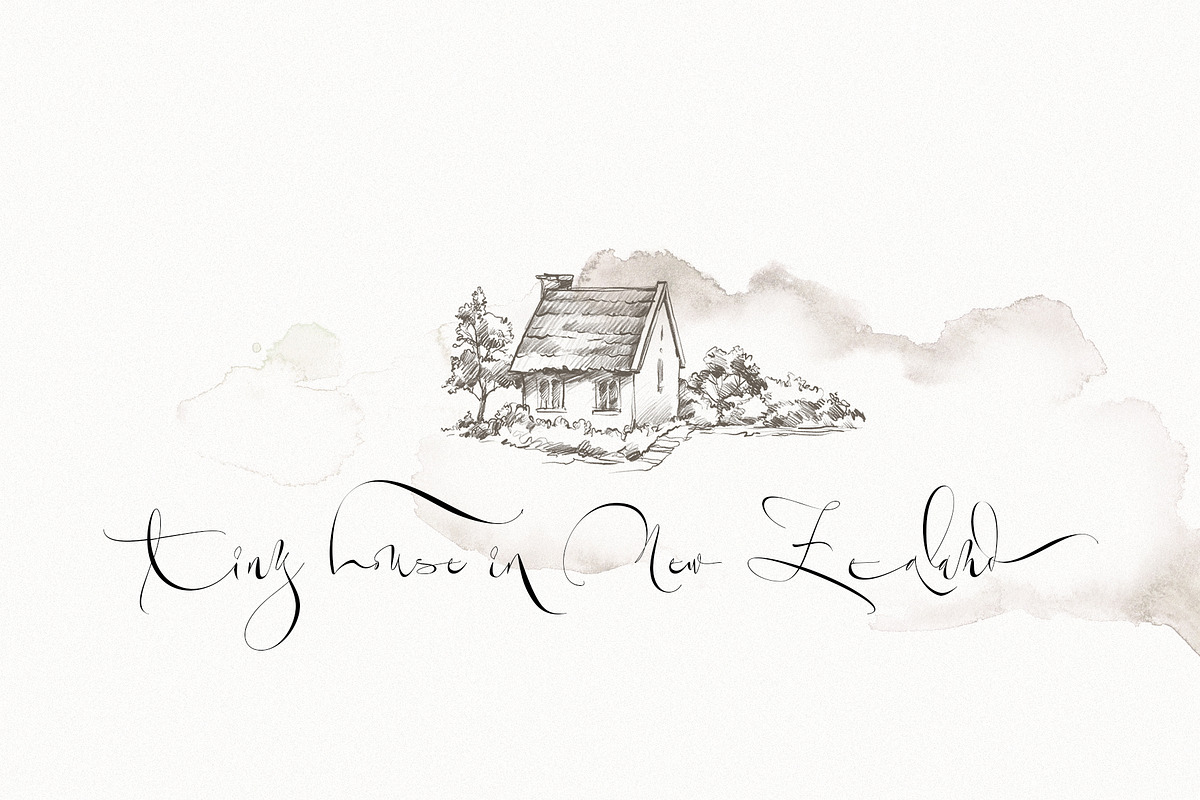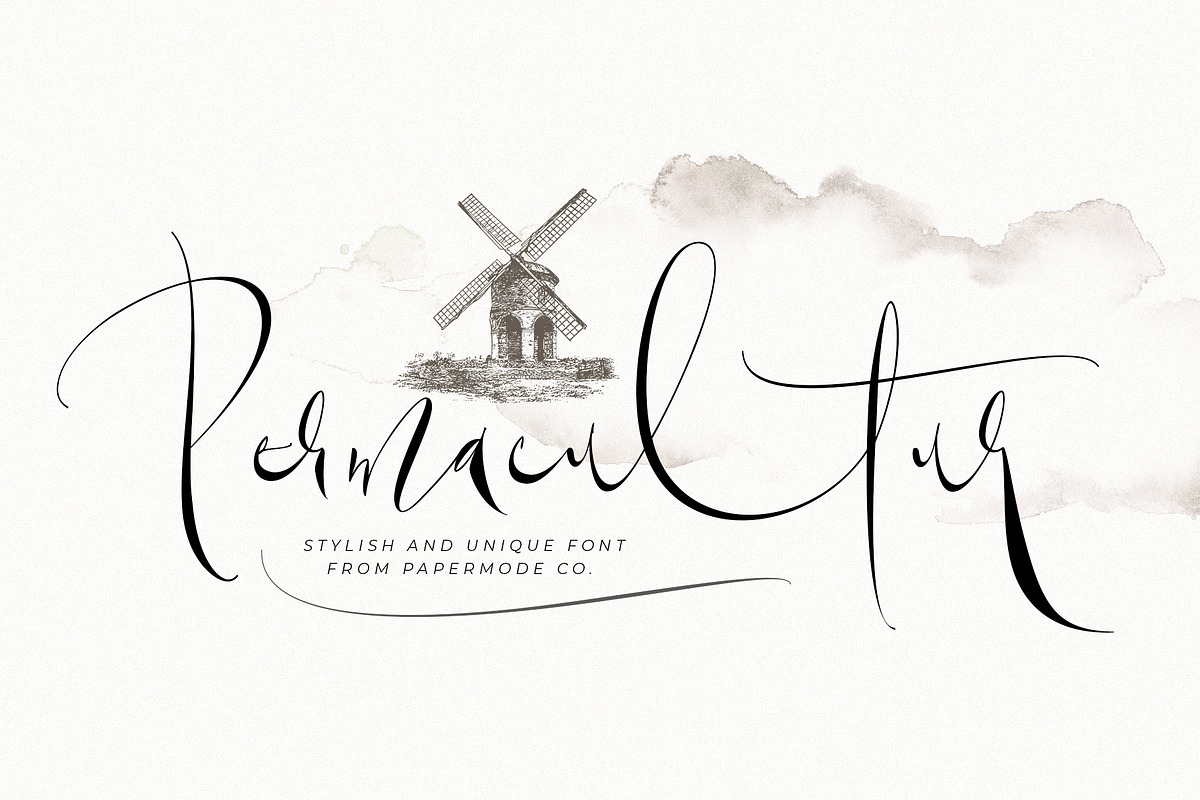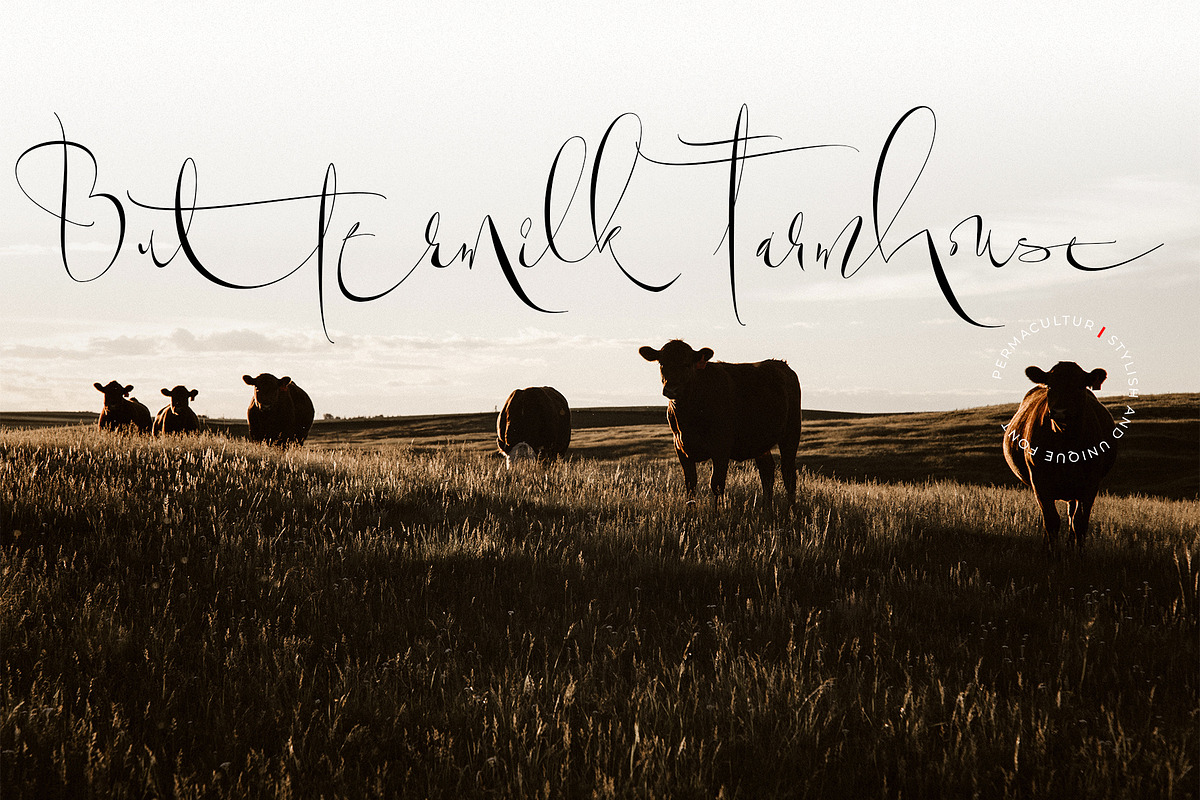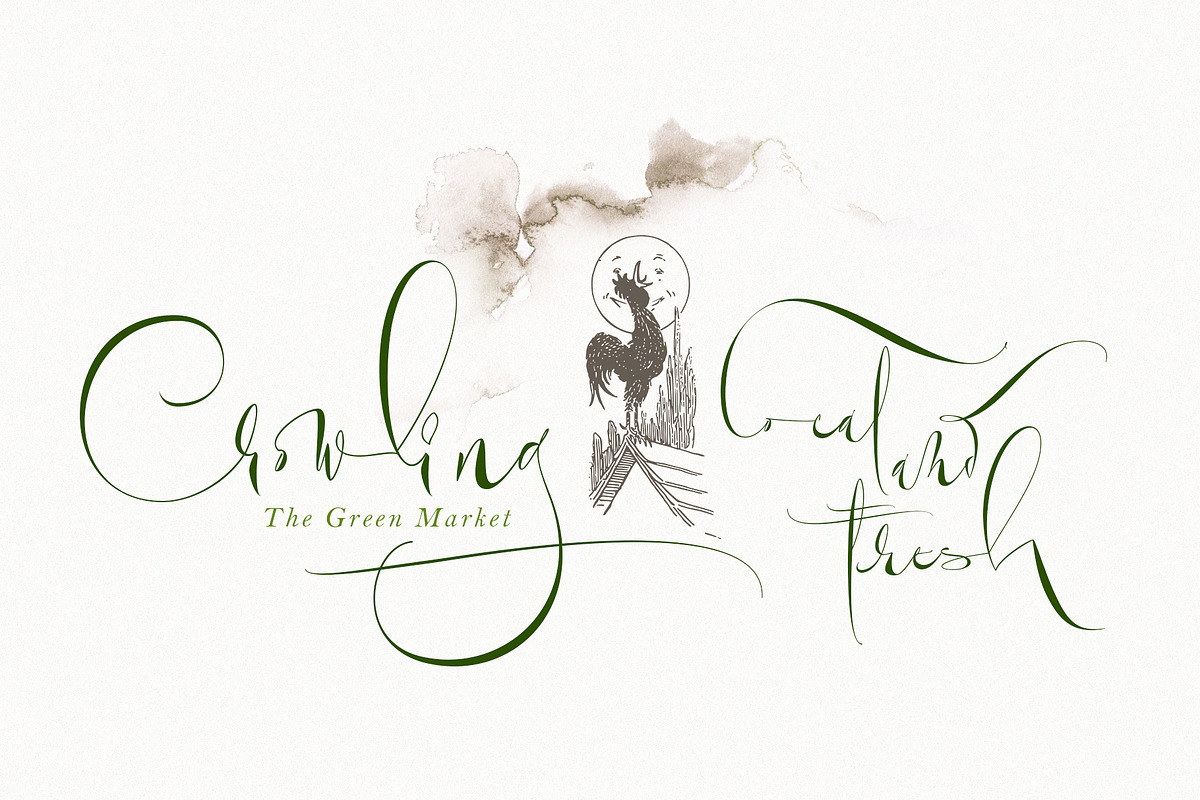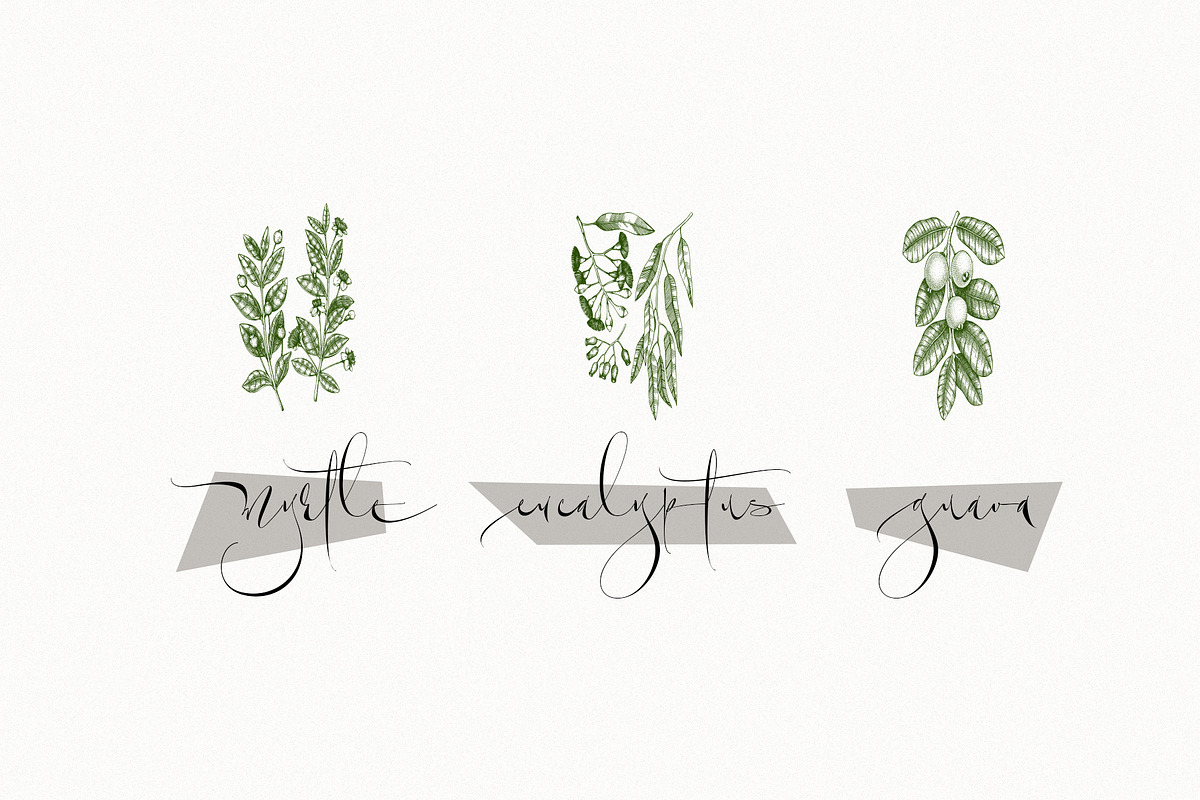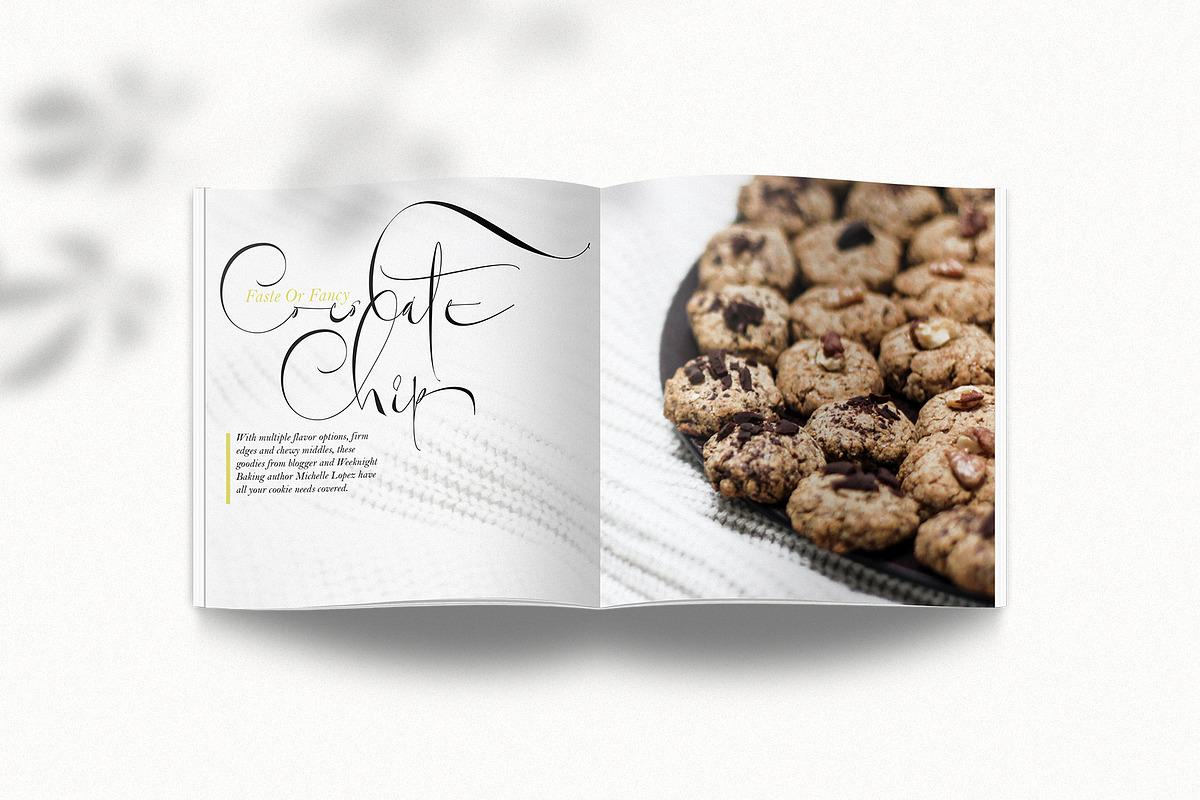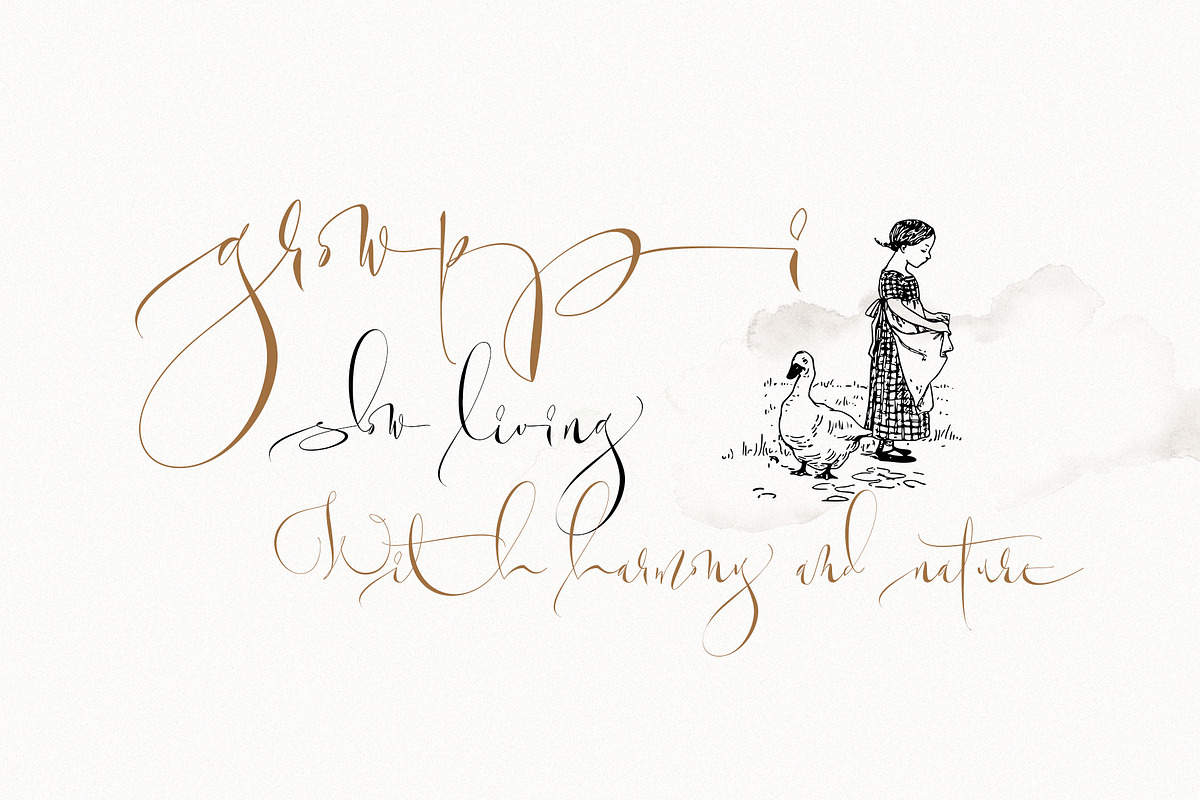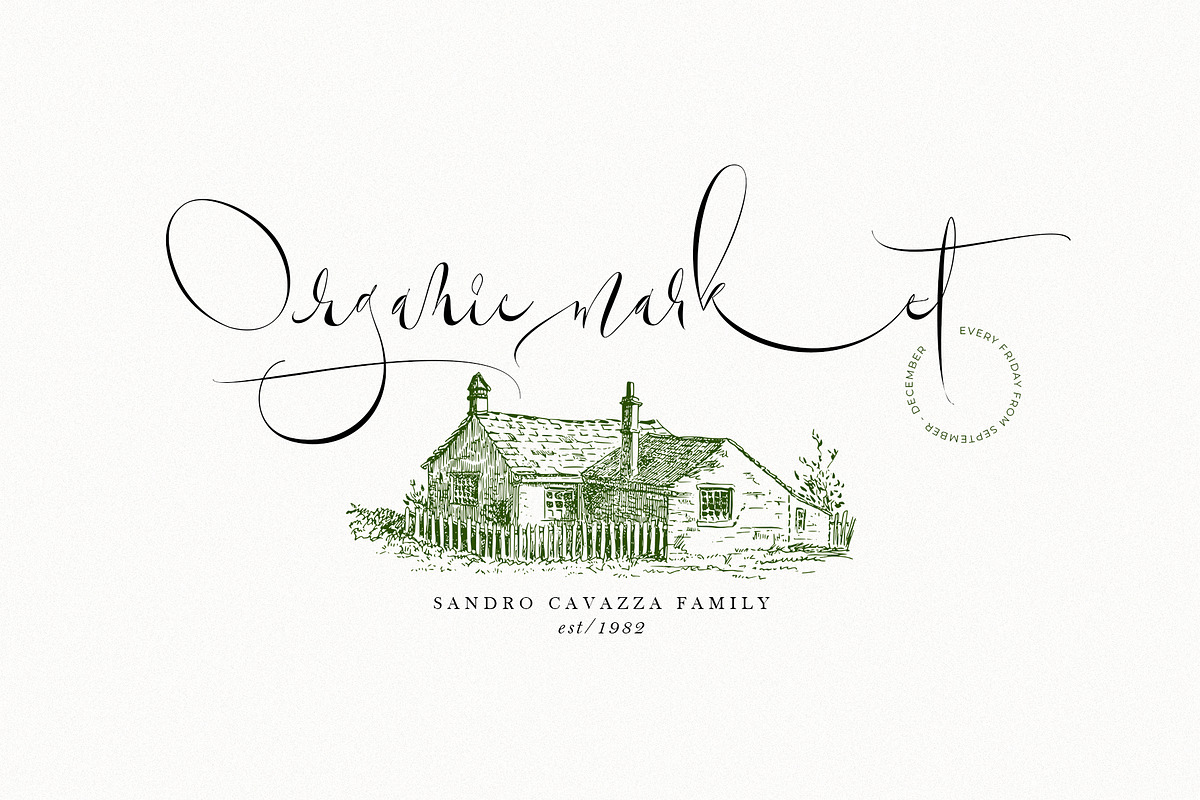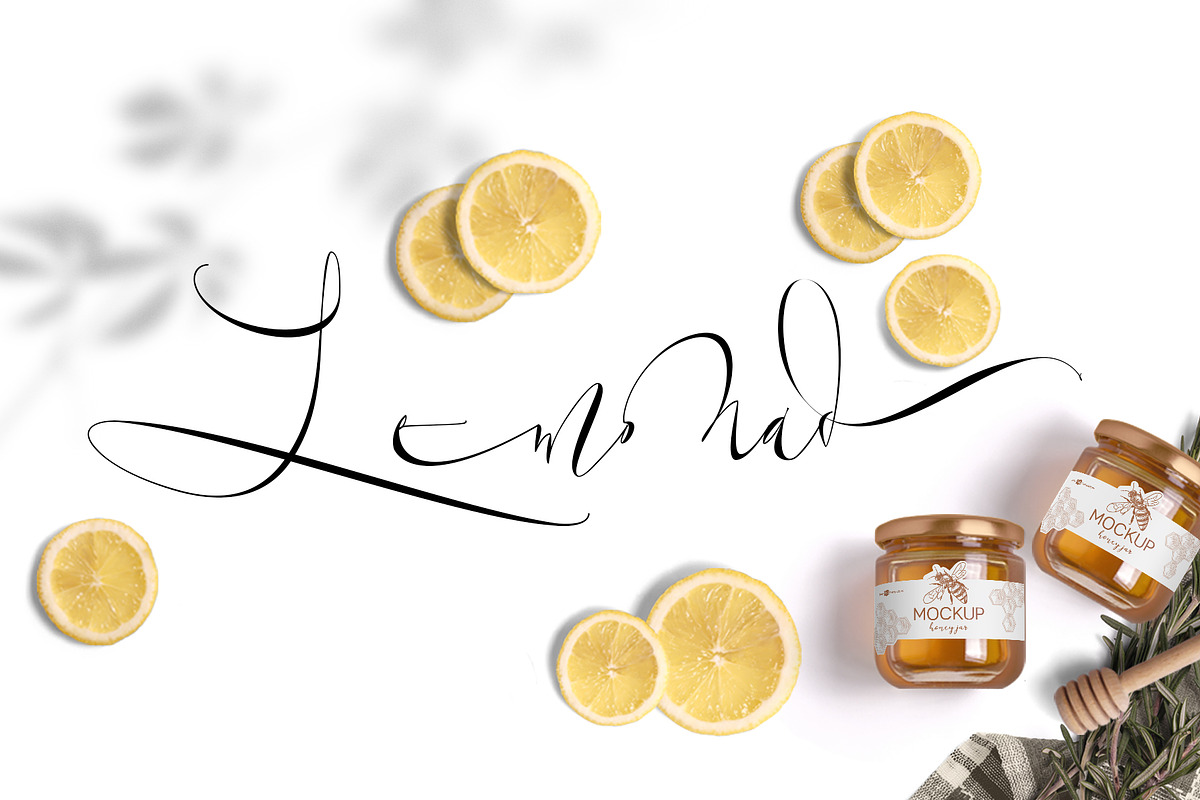
Permacultur
Permacultur, letters to connected each other to convey elegance and style. Thin and thickness, feminine and friendly. Permacultur will work perfectly for fashion, e-commerce brands, trend blogs, invitation, product packaging, hand-written quotes, greetings cards, labels, logos, magazines, books, greeting/wedding cards, packaging, stationery, novels, labels or any type of advertising purpose.
Includes multilingual support and special ligature